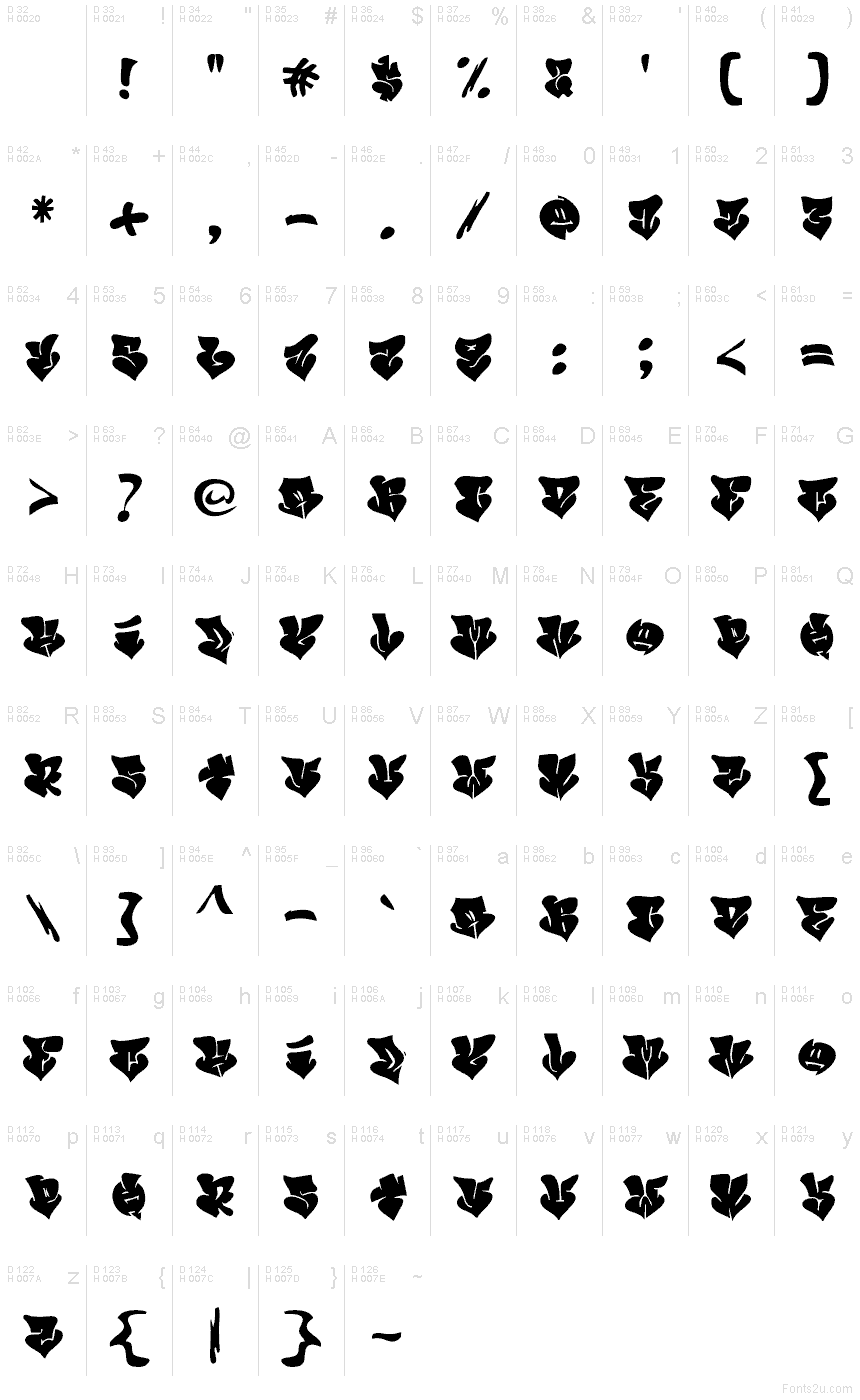
Urban Love
Urban Love font by Cikareotype Studio is a graffiti-inspired display font that brings together an urban aesthetic with bold presence. Its expressive curves and rebellious feel are heavily influenced by street culture, resulting in an edgy and stylish solution for any project.